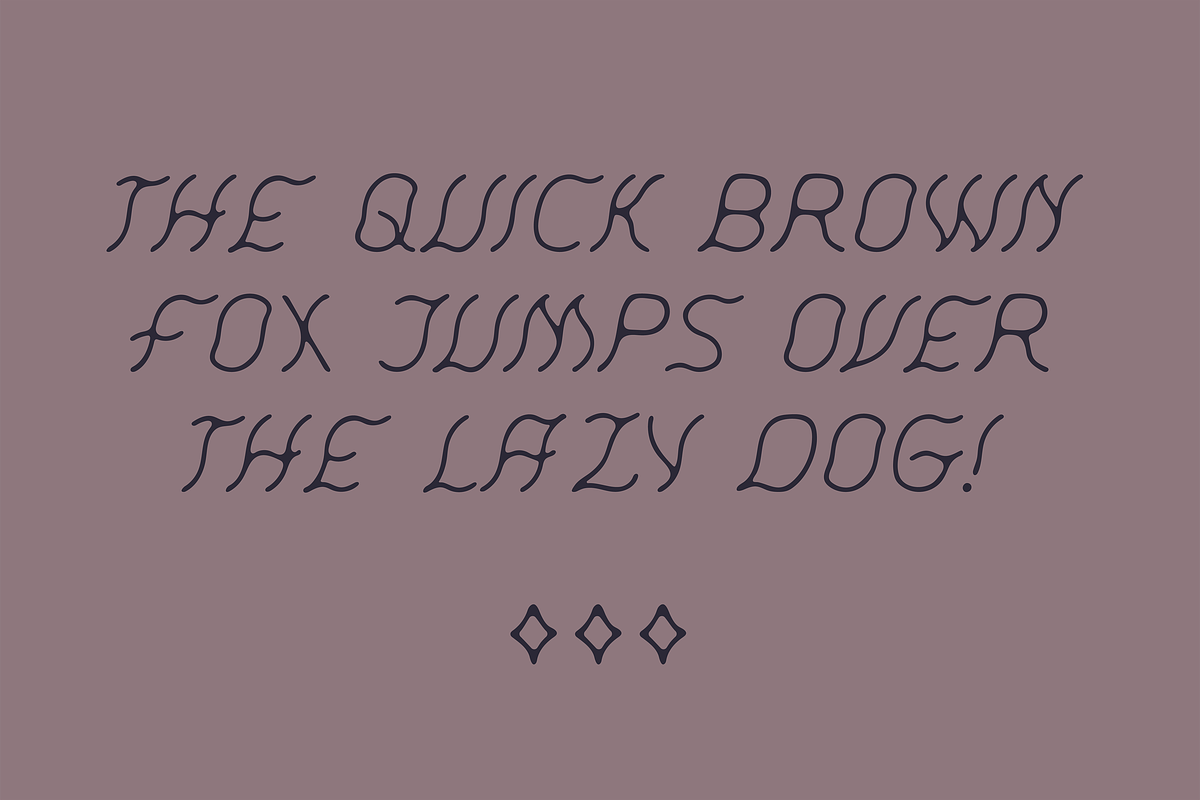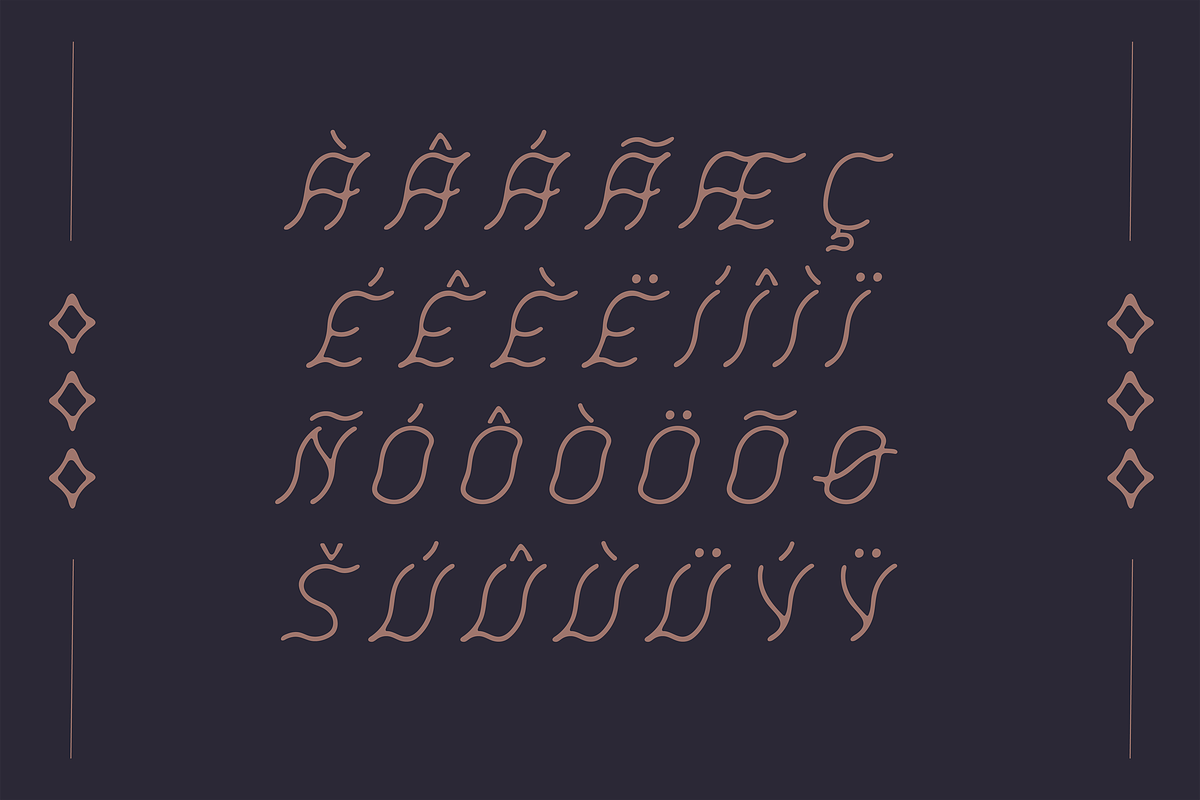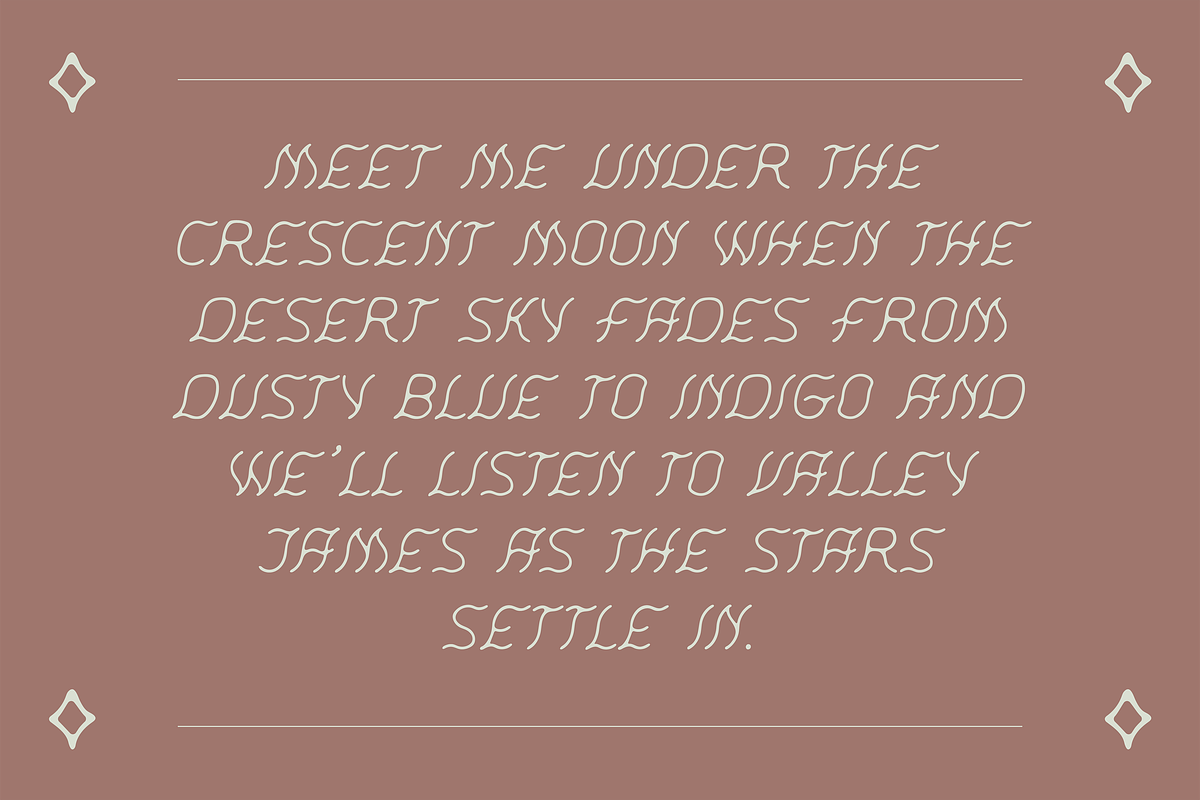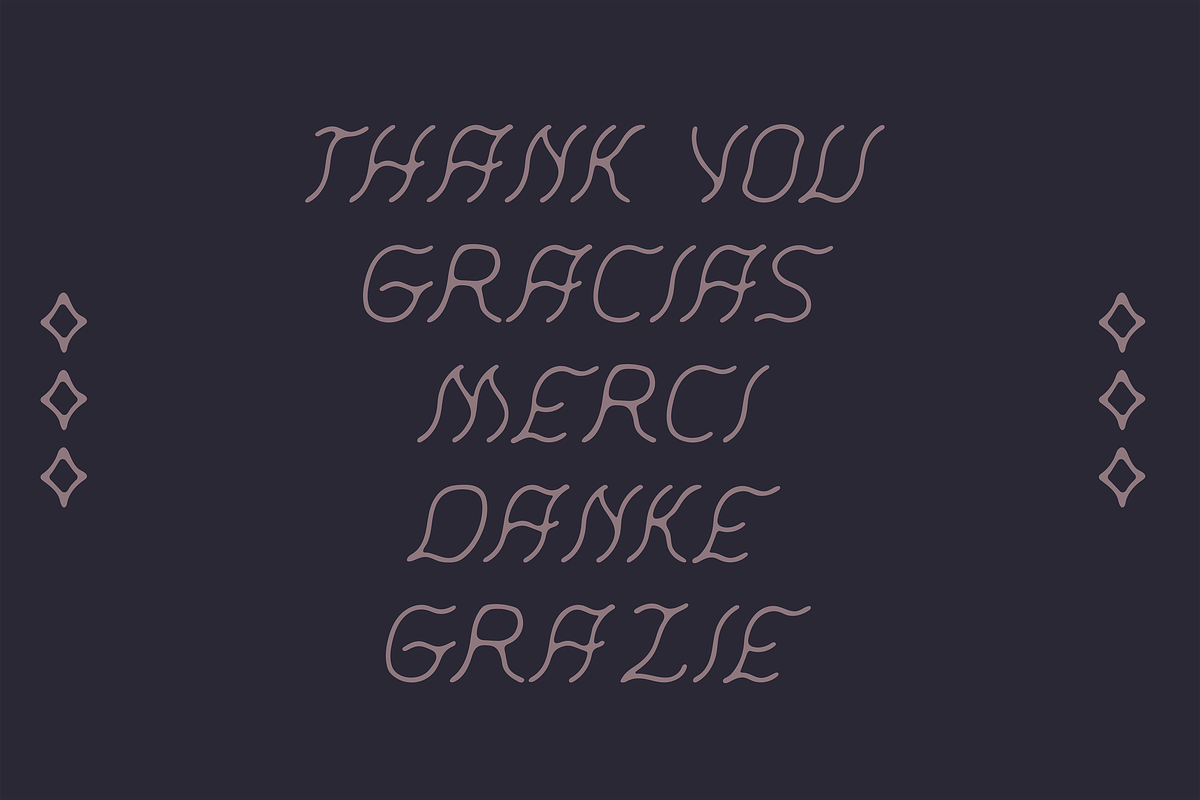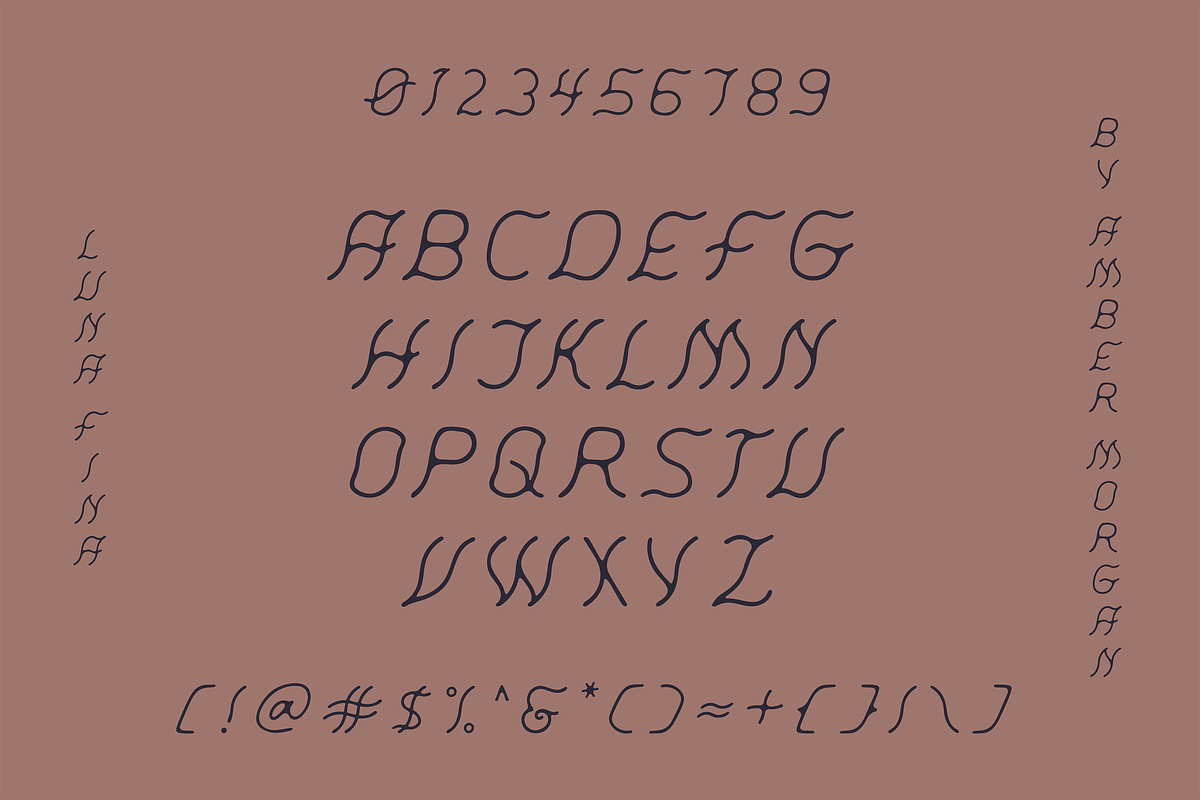
Luna Fina | Slanted Sans Serif Font
Luna Fina is a hand-drawn, slanted sans serif named for the delicate crescent moon that rises over the desert at dusk. Inspired by quiet moonlight, starry nights, and the soft indigo of the High Desert, it blends thin, wavy lines with a mystical vibe.
Perfect for brand and design projects that call for a dreamy desert aesthetic, typography for album covers, concert posters, merch, boutique branding, packaging, or even wedding invitations.